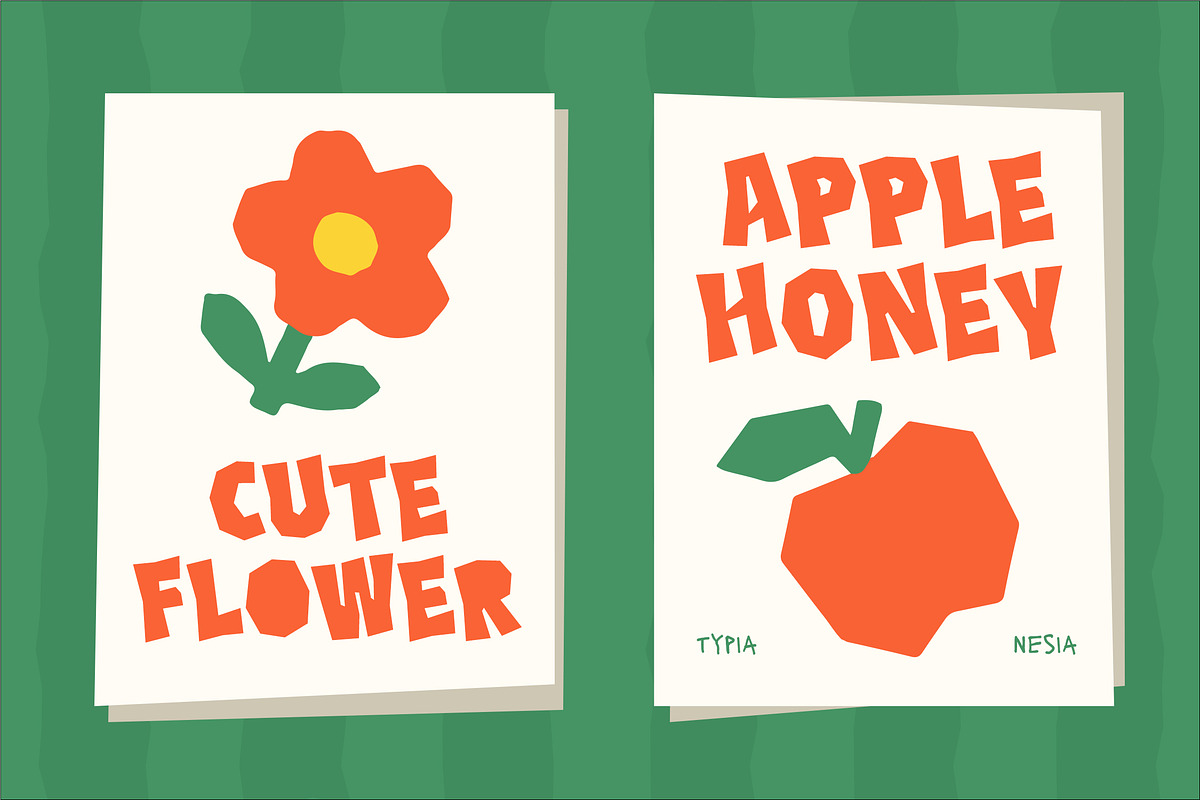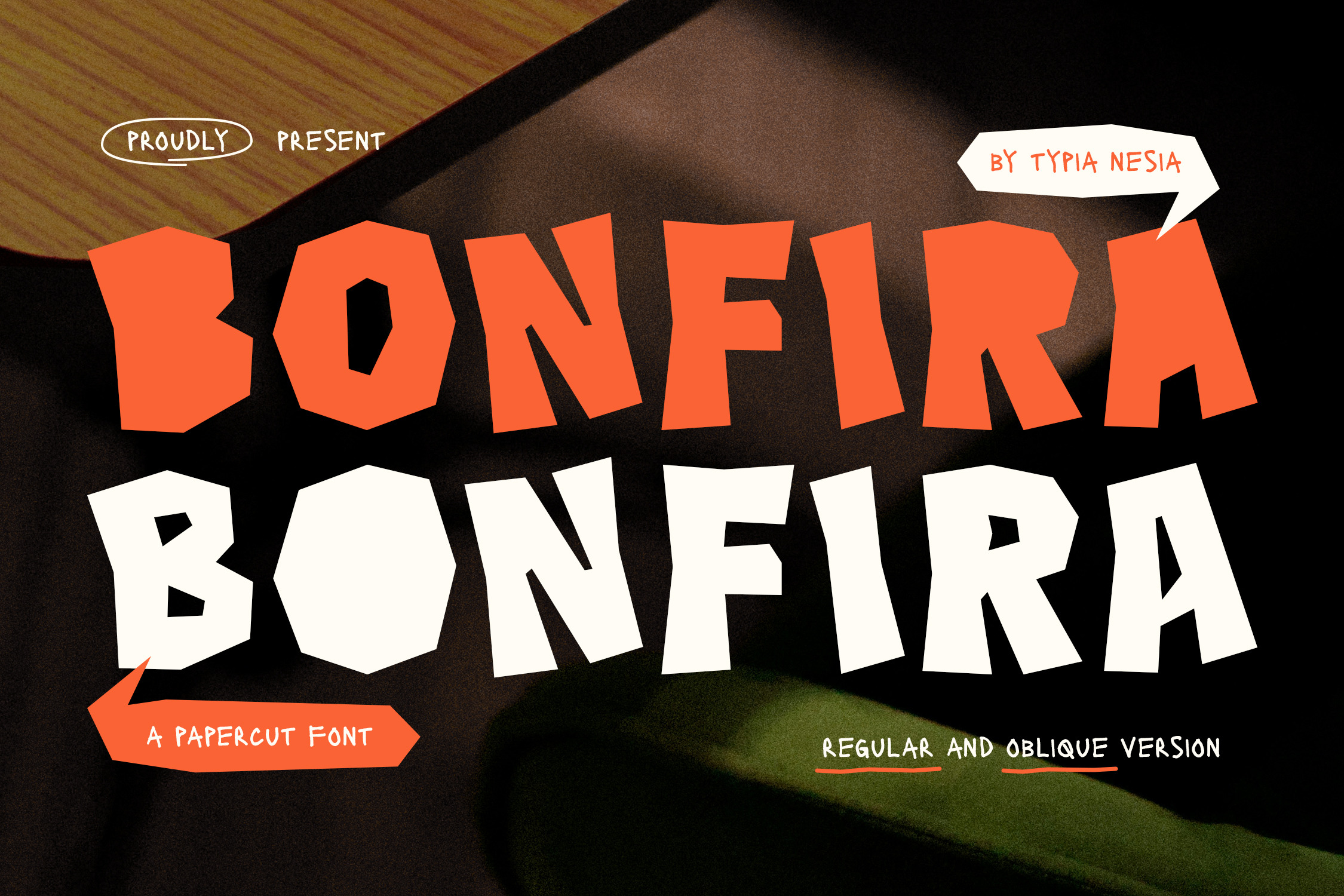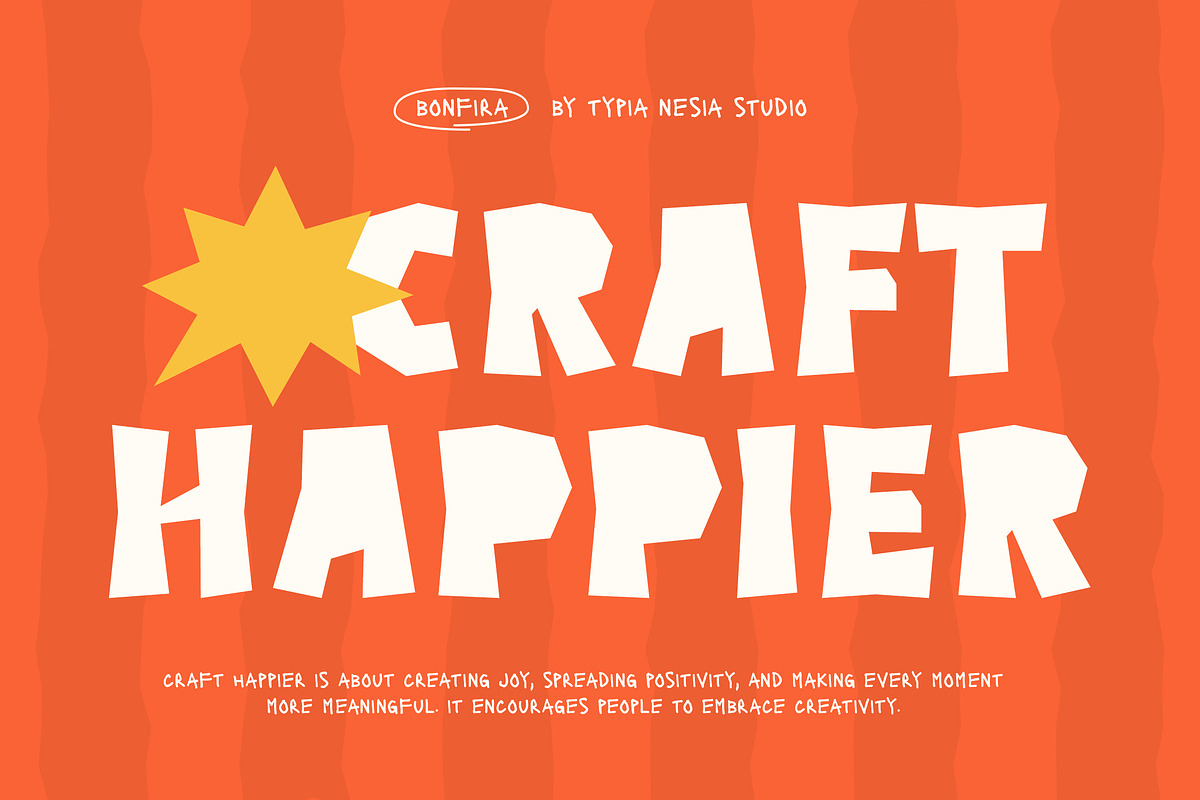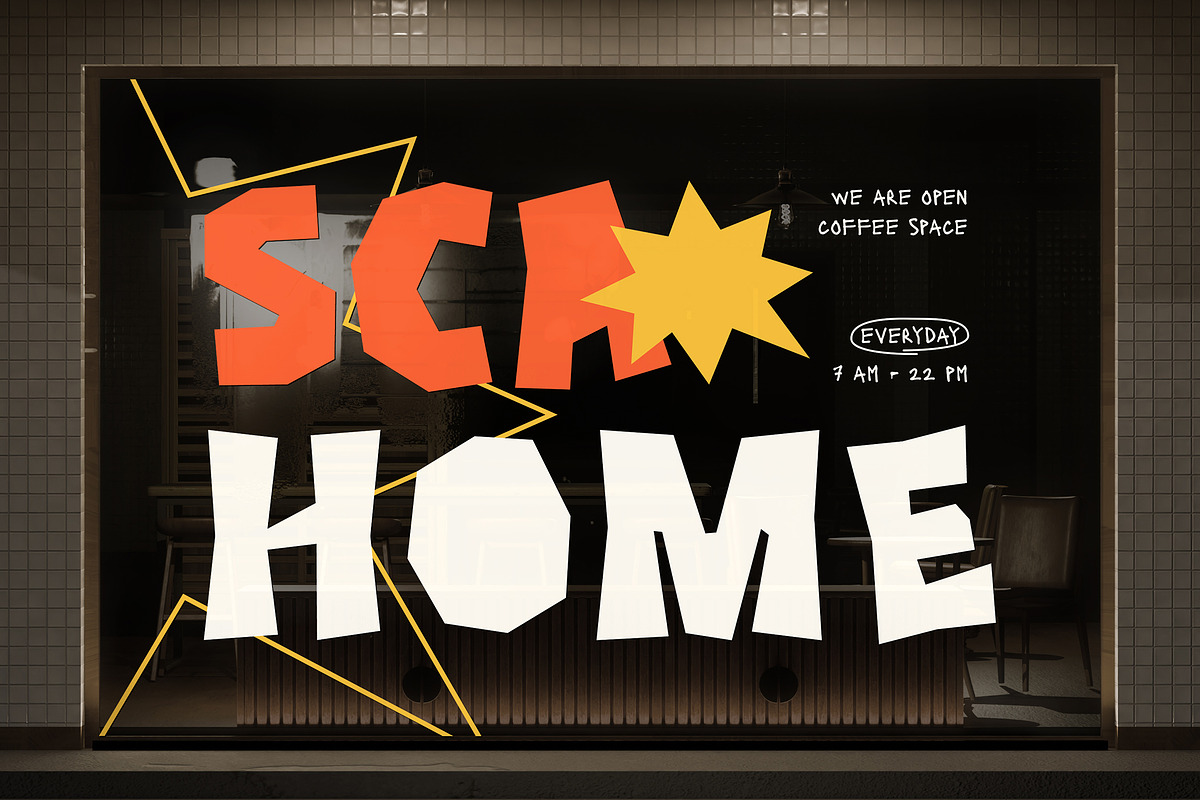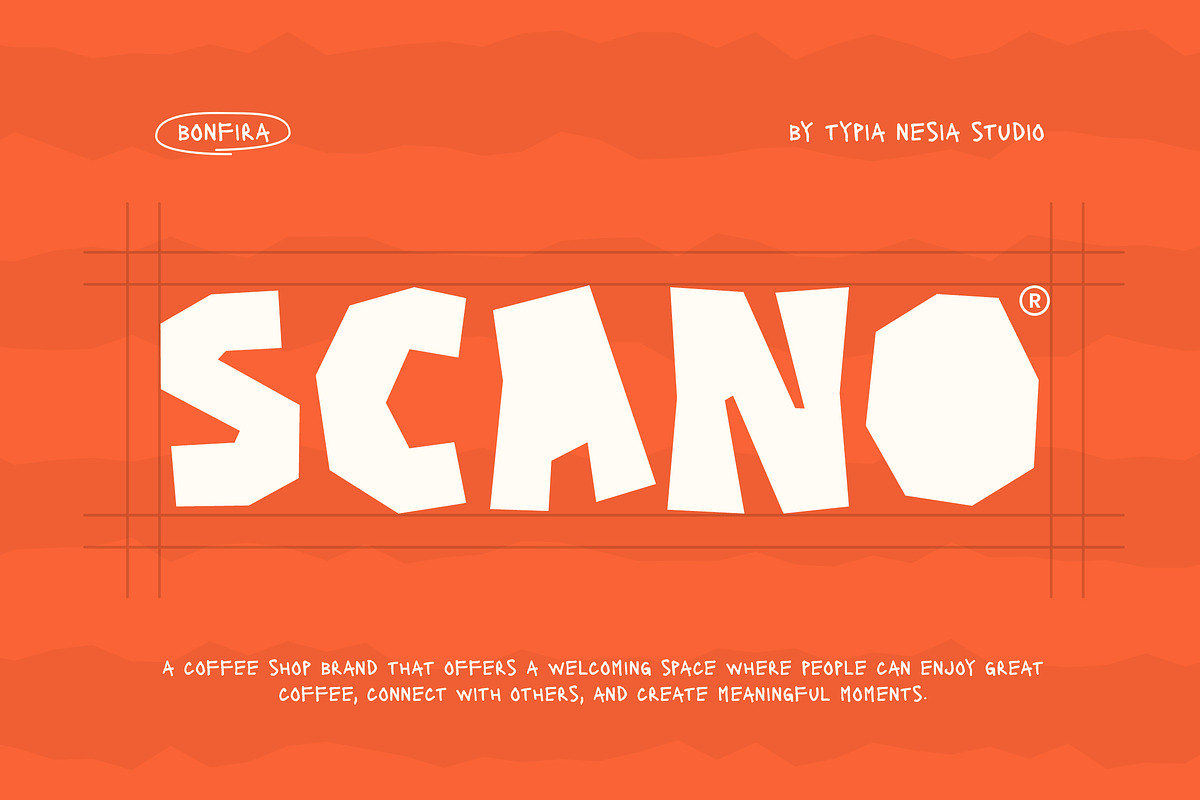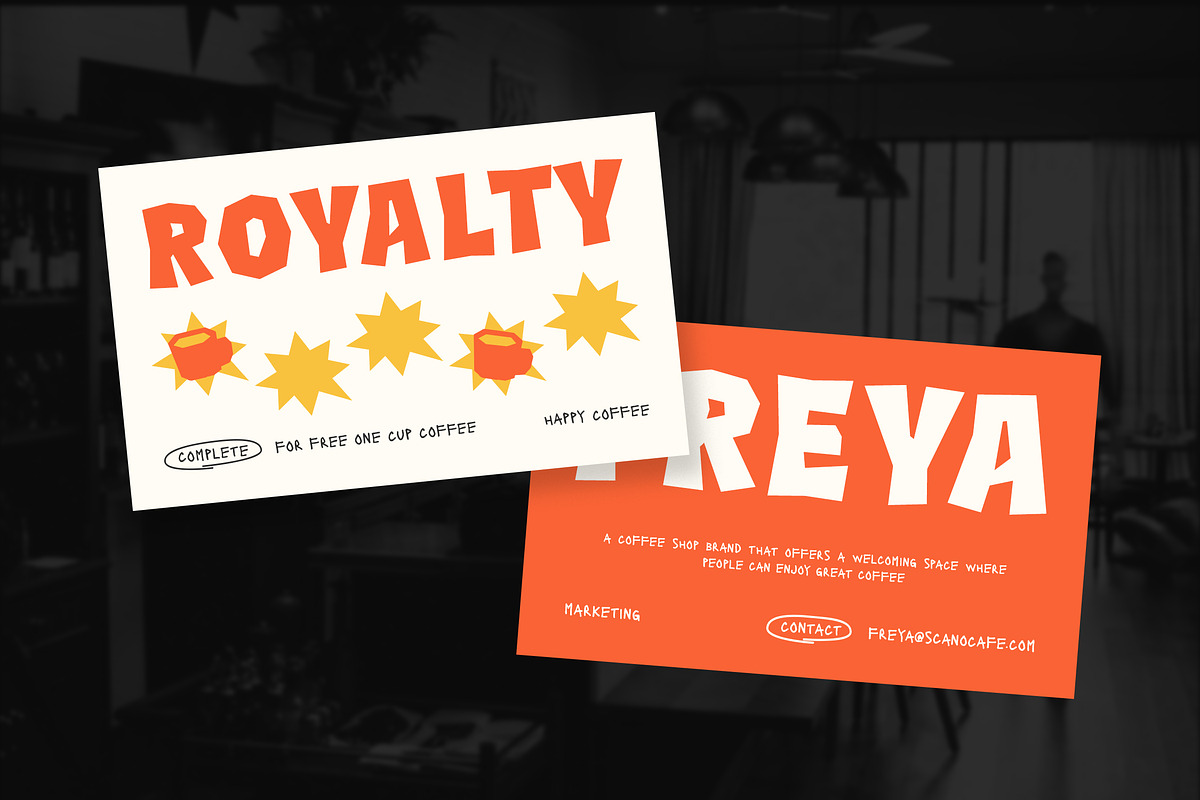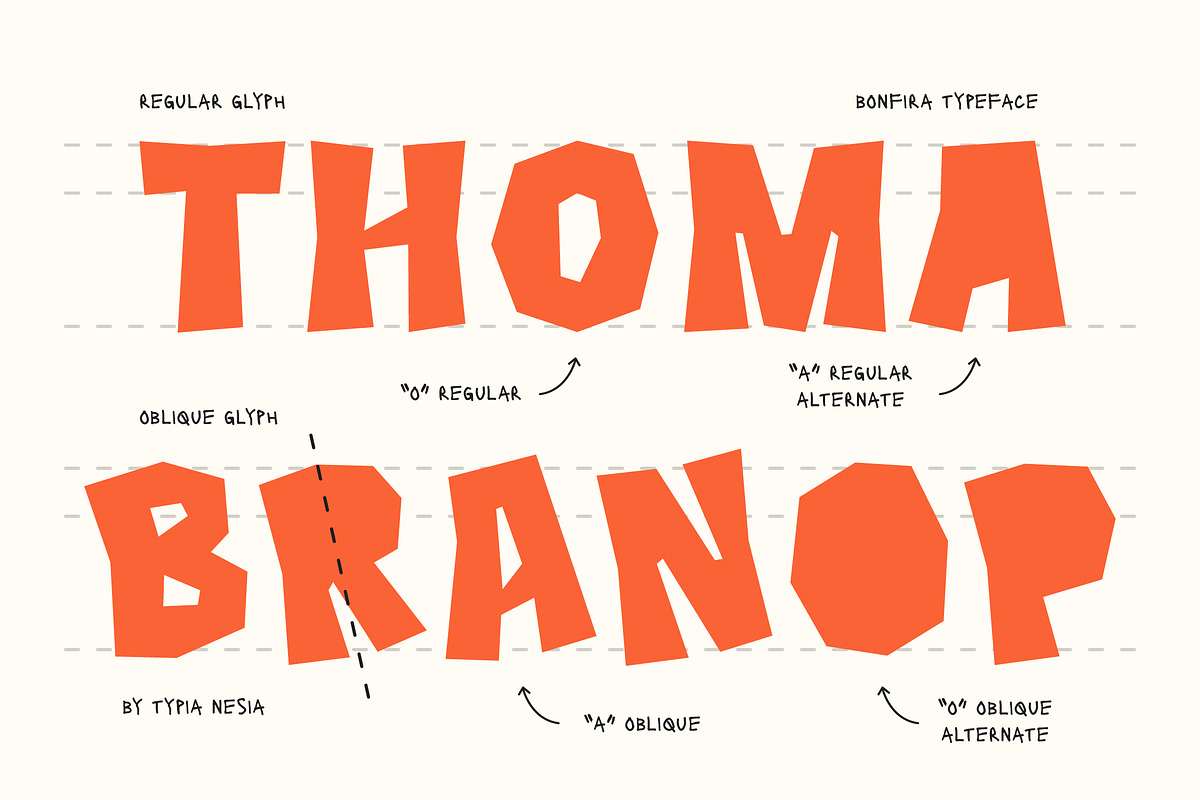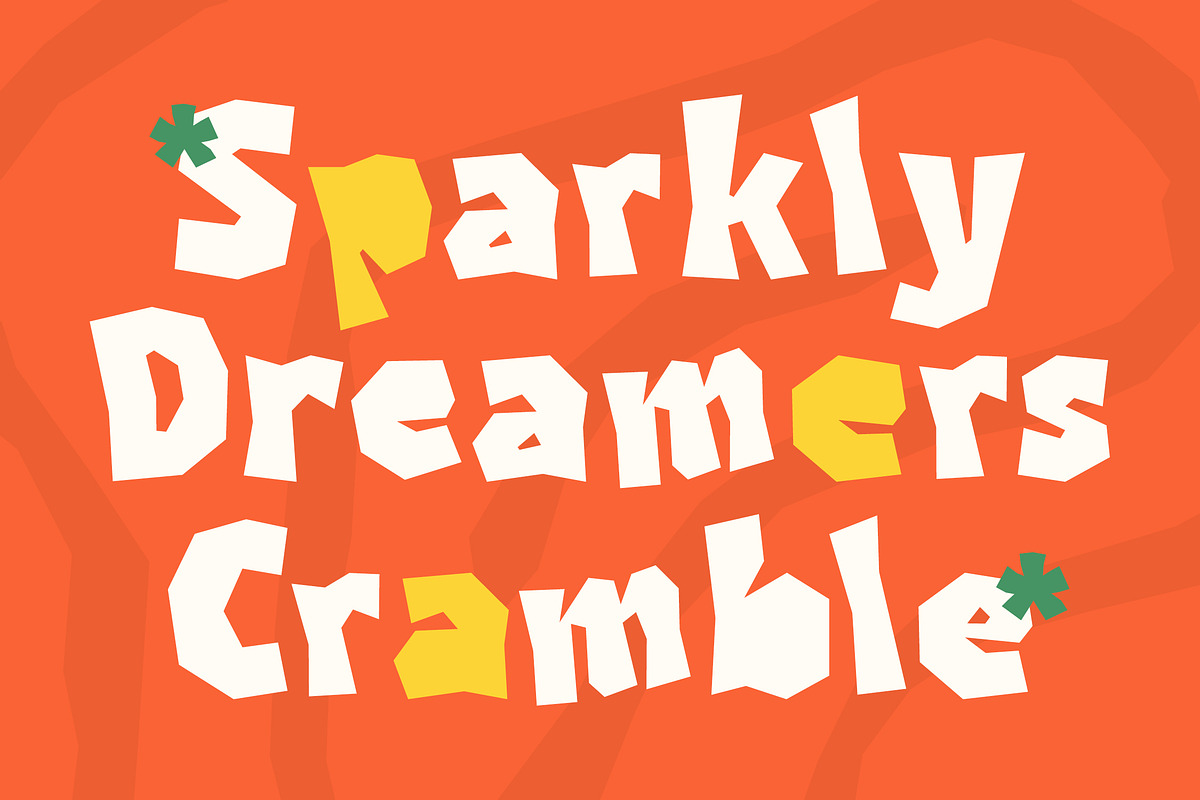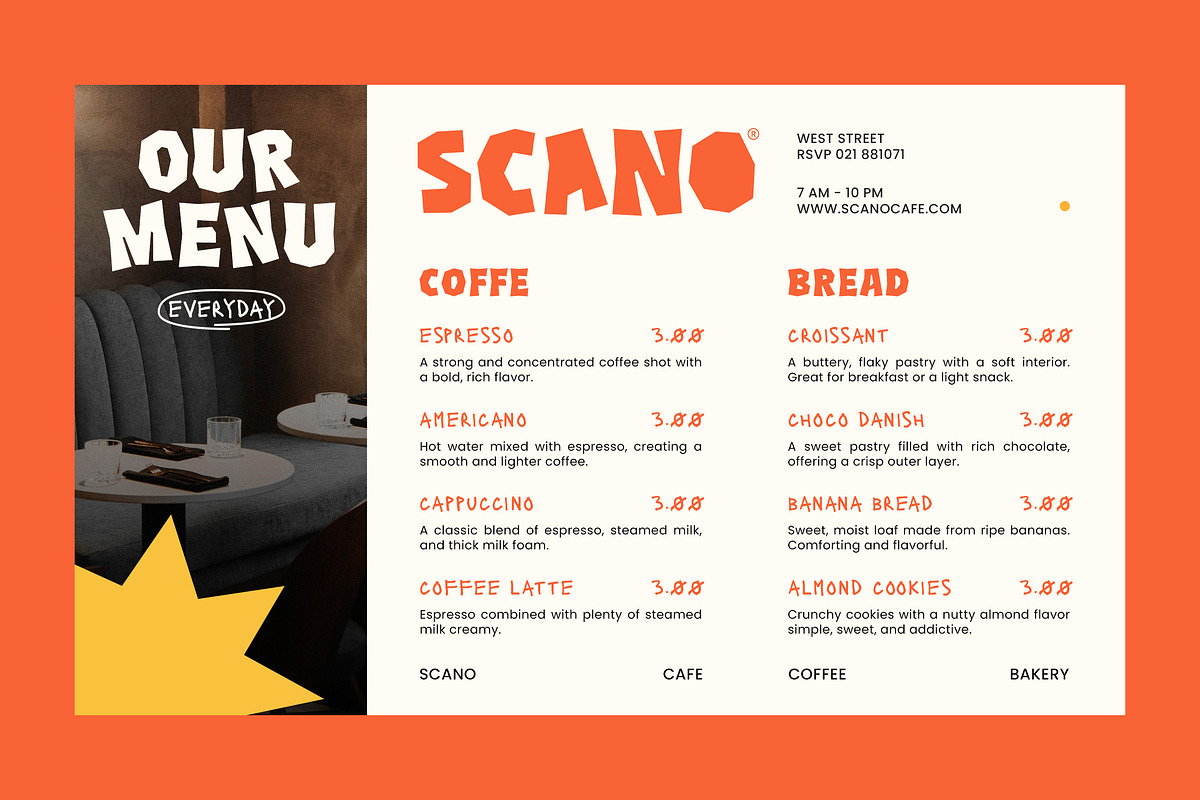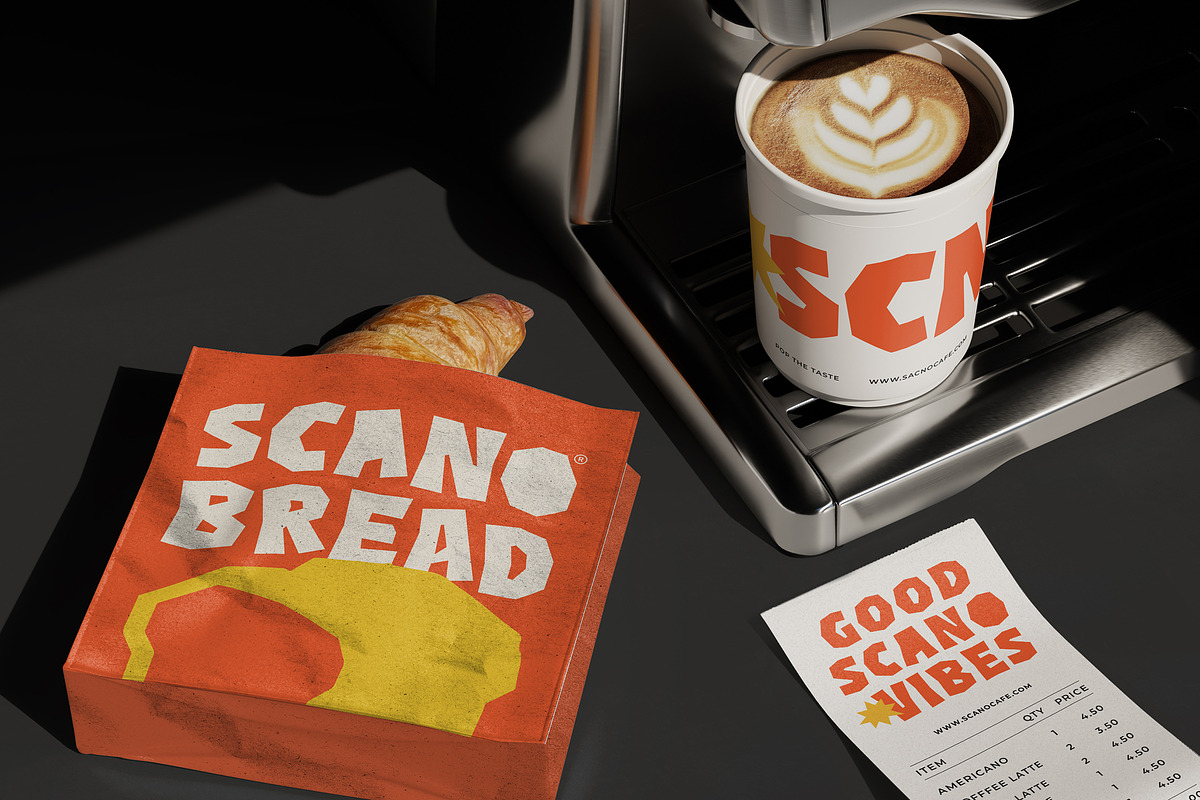
Bonfira - Bold Papercut Craft Font
Bonfira - Bold Papercut Display Font for Creative Branding & Packaging
Bonfira is a bold papercut display font featuring handcrafted cutout letterforms, organic irregular shapes, and a playful creative personality. Inspired by traditional paper-cut art, it delivers expressive typography that instantly captures attention while maintaining excellent readability. It includes Regular and Oblique styles.
Perfect for creative branding, food packaging, beverage labels, posters, festival graphics, café identities, merchandise, social media campaigns, stationery, and editorial headlines. Bring handcrafted energy and artistic character into every design with typography that feels bold, fresh, and unmistakably original.